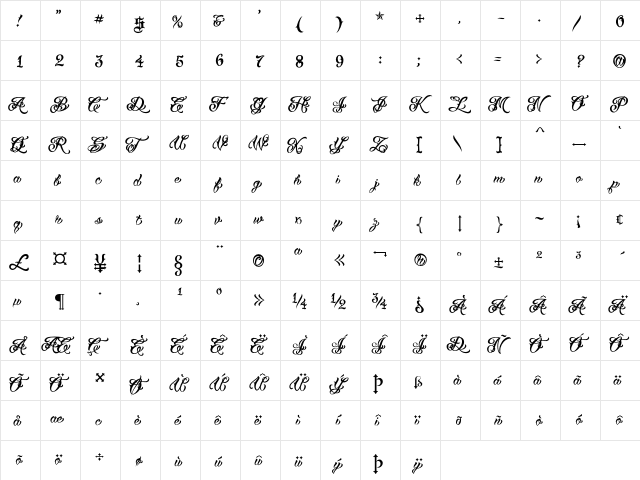
VTCTattooScriptTwo Regular
| Foundry | Larry E.Yerkes - WolfBainX - V.T.C. Vigilante Typeface Corporation |
| Designer | Larry E.Yerkes - Vigilante Typeface Corporation V.T.C. |
Design Context for VTCTattooScriptTwo Typeface
VTCTattooScriptTwo flows with the natural rhythm of handwritten lettering, making it ideal for designs that call for warmth and personal expression.
Font Pairing: Combine VTCTattooScriptTwo with a simple geometric sans for maximum contrast — the tension between flowing curves and clean structure is a classic typographic pairing.
Pro Tip: Use VTCTattooScriptTwo for short runs of text — names, titles, or taglines. Extended body copy in script faces tires the eye quickly.